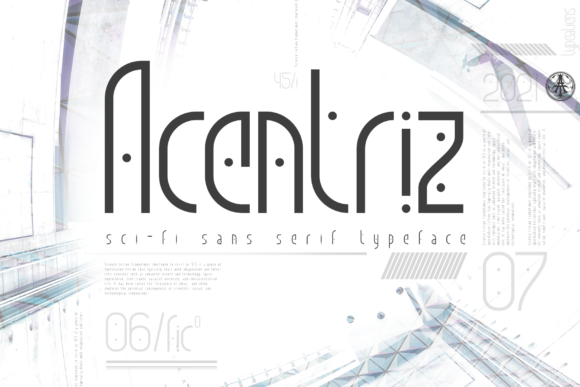
The Acentriz Font: A Game-Changer for Your Designs
Have you ever been in the middle of a design project, and suddenly, you’re stuck on finding the perfect font? I recall a recent experience where I was working on a client’s branding project, and I just couldn’t find a font that captured the right vibe. That was until I stumbled upon the Acentriz font. This cool and modern display font has been a revelation, and I’m excited to share my experience with you.
An Honest Review of Acentriz
What I Love About Acentriz ✨
- ✅ Simple yet strong visual effect: Acentriz has a way of instantly elevating your design with its clean and modern aesthetic.
- ✅ Highly versatile: Whether you’re working on a logo, a poster, or a social media graphic, Acentriz adapts seamlessly to different contexts.
- ✅ Endless variations: With its range of OpenType features, glyphs, and stylistic alternates, you can experiment with numerous variations to find the perfect fit for your design.
- ⚠️ Limited use for body text: Acentriz is primarily designed for display purposes, so it’s not ideal for longer blocks of text.
- ⚠️ May require adjustment for certain languages: Depending on the language and script, some characters might need manual kerning or adjustment for optimal readability.
Exploring Acentriz’s OpenType Features
Acentriz offers a range of OpenType features, glyphs, and stylistic alternates that can help you create unique and customized designs. Some of these features include:
| Feature | Description |
| Stylistic Alternates | Swap out characters for stylized alternates to add visual interest to your text. |
| Glyphs | Access a range of glyphs, including ligatures, ornaments, and more. |
| OpenType Ligatures | Enable ligatures to create flowing, connected text. |
The Backstory Behind Acentriz
The story behind Acentriz is one of creative experimentation and innovation. Designed with the modern designer in mind, Acentriz was crafted to provide a versatile and attention-grabbing font that could adapt to various design contexts. While the actual designer may remain anonymous, their passion for typography and design excellence shines through in every detail of Acentriz.
Q: Is Acentriz suitable for body text?
A: No, Acentriz is primarily designed for display purposes and may not be suitable for longer blocks of text.
Q: Does Acentriz support multiple languages?
A: Yes, Acentriz supports a range of languages, but some characters may require manual kerning or adjustment for optimal readability.